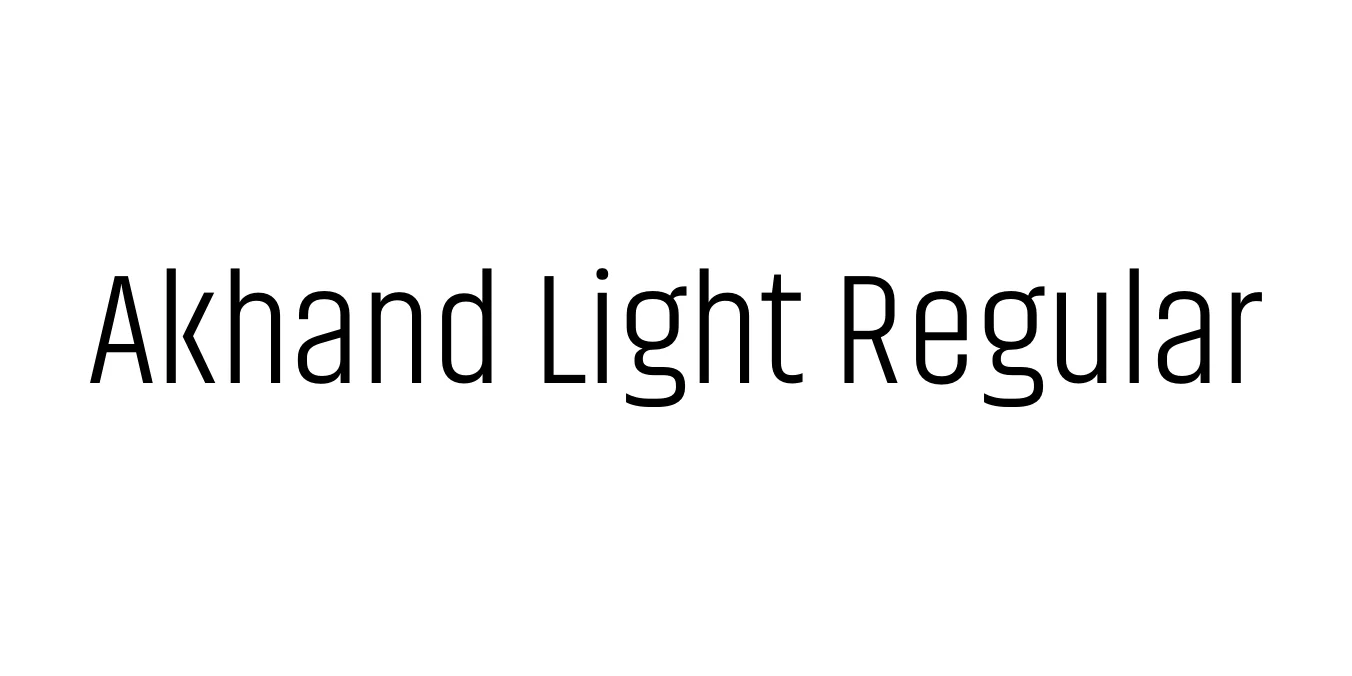
Akhand Light Regular
Designed by Satya Rajpurohit
Akhand Light Regular is a sophisticated member of the Akhand typeface family, designed by Satya Rajpurohit for the Indian Type Foundry (ITF). This font family is characterized by its modular, compact structure and straight-sided letterforms, which provide a clean and architectural aesthetic. The Light weight specifically offers a refined and modern look that maintains high legibility even in space-constrained layouts, making it a favorite for contemporary graphic design.
The design philosophy of Akhand centers on neutrality and versatility. By stripping away unnecessary decorative elements, the typeface achieves a technical precision that works across various media. It has become a popular choice for designers seeking a font that conveys stability and modernity, blending the characteristics of geometric sans-serifs with the efficiency of condensed modular designs.
Akhand Light Regular Best Uses
Excellent for creating impact in bold, space-efficient titles.
Ideal for modern corporate identities and technology startups.
Perfect for clean magazine layouts and sophisticated typography.
Provides a clear and sleek look for mobile applications and websites.